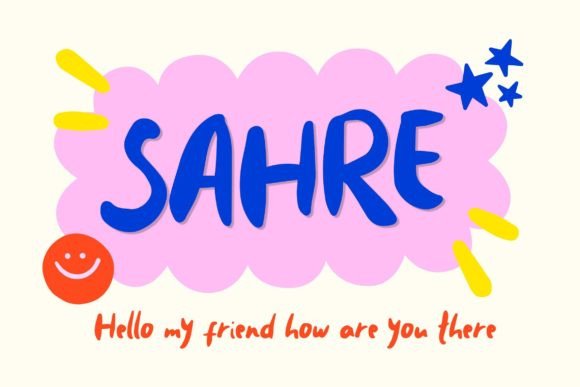
Welcome to the world of Sahre Font, the ultimate display font that embodies boldness, impact, and an undeniable presence. Crafted with thick, powerful strokes and striking letterforms, Sahre Font is a masterpiece designed to demand attention and make a lasting impression. Whether you're a designer, marketer, or creative professional, Sahre Font is the perfect tool to elevate your projects and leave a lasting impact on your audience.
Step into the realm of Sahre Font and experience the thrill of creating captivating headlines that jump off the page, posters that command attention from across the room, and branding that exudes strength and modernity. With its bold and confident demeanor, Sahre Font effortlessly conveys your message, making it impossible to ignore.
Imagine your designs adorned with Sahre Font's striking letterforms, each stroke imbued with power and purpose. Create logos that radiate confidence, posters that ignite excitement, and social media graphics that capture the imagination. Sahre Font is the key to unlocking your creative potential and unleashing a world of endless possibilities.
Dive into the versatility of Sahre Font and discover its adaptability to a wide range of projects. Perfect for headlines, posters, branding, and more, Sahre Font seamlessly integrates into any design concept, adding an instant touch of sophistication and flair. Its bold presence is guaranteed to turn heads and leave a lasting impression.
Embrace the creative possibilities with Sahre Font and elevate your designs to new heights. Join the ranks of creative professionals who have harnessed the power of Sahre Font to create stunning visuals that resonate with audiences. It's time to unlock your creativity and embark on a journey of bold and impactful design.